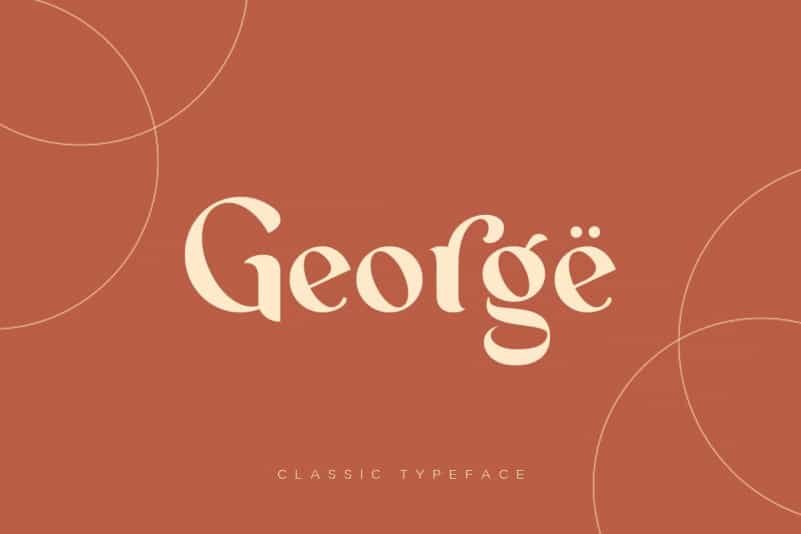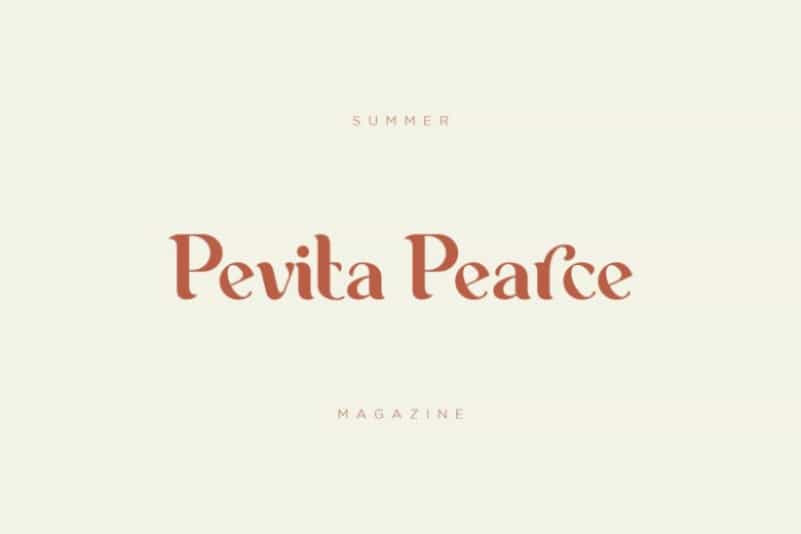
George is a rather traditional serif font. Incorporate beautiful headlines, and stunning mystery designs with a touch of oldies. George’s contrasting lines and curved terminals provide the logos, and holiday cards, wedding invitations, quotes, advertisements, and various products with stylish looks.